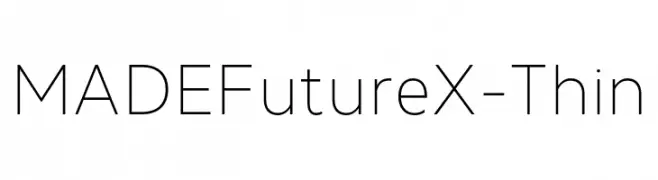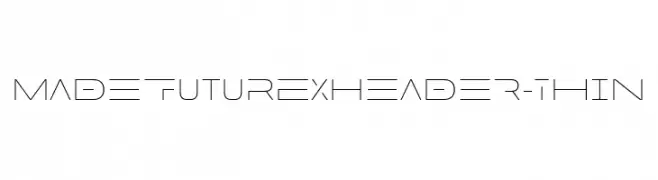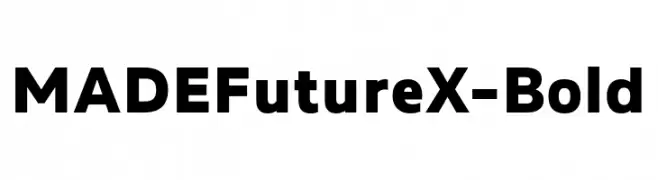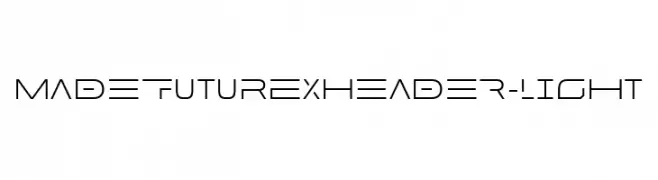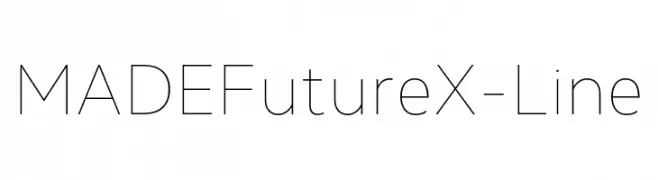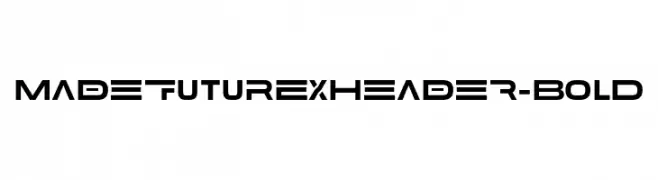
A futuristic, geometric font with clean lines and a modern aesthetic.
A modern, thin sans-serif font with a clean and minimalist design.
A modern, geometric sans-serif font with a clean and balanced design.
A modern, geometric font with thin, linear strokes and a minimalist aesthetic.
A futuristic, minimalist font with thin, geometric lines.
A bold, modern sans-serif font with clean lines and strong presence.
A bold, futuristic font with geometric and dynamic design elements.
A sleek, futuristic font with geometric elements and a minimalist aesthetic.
A modern, minimalist font with thin lines and geometric shapes.
A futuristic, bold font with geometric elements and sharp angles.